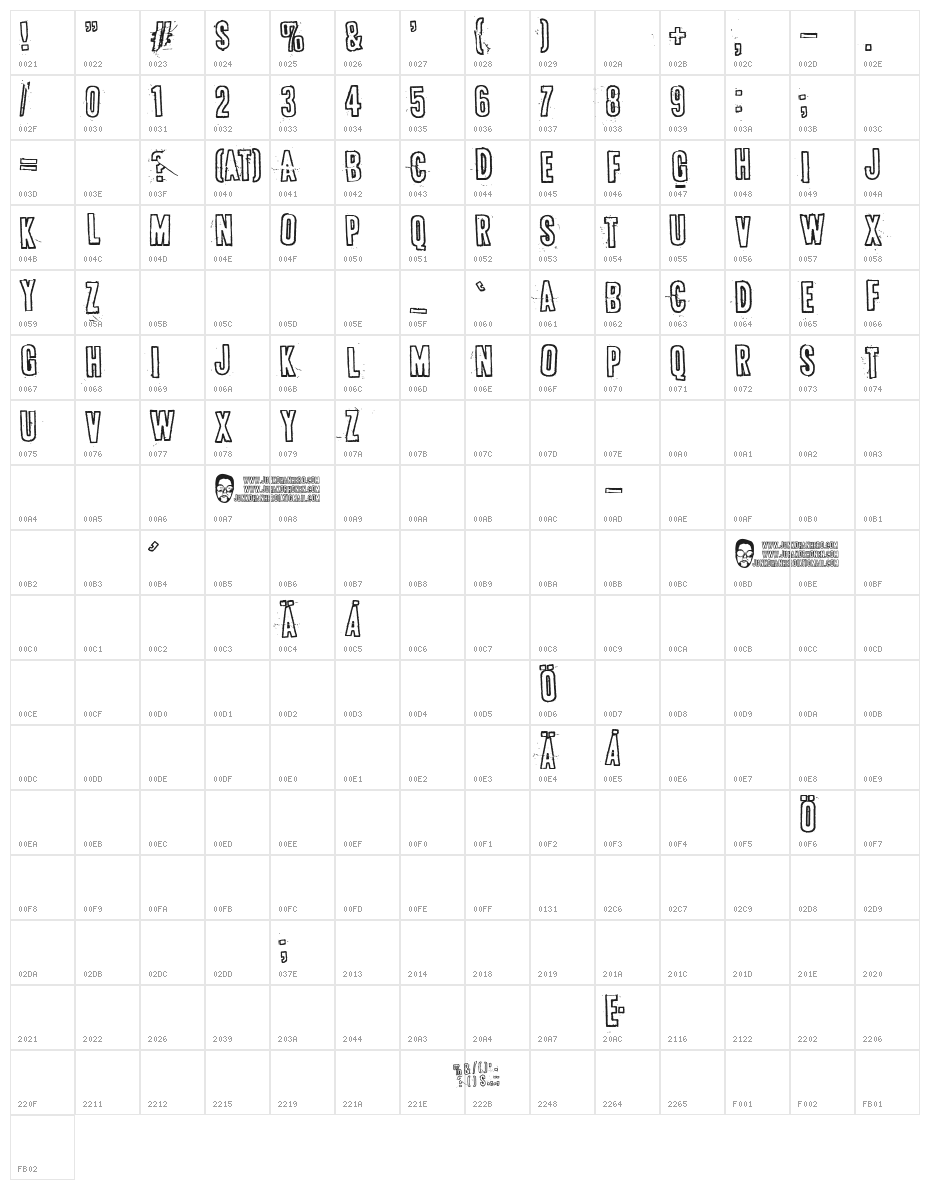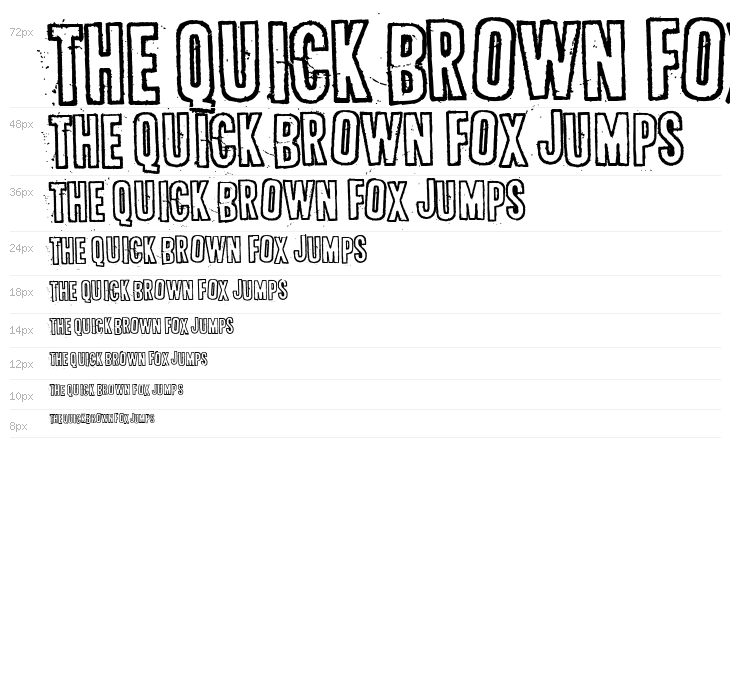
Bugebol huomenna Font
Bugebol huomenna Description
This font features a bold, distressed style with a hand-drawn appearance. The characters are outlined with a rough, textured edge, giving it a rugged and vintage feel. The uppercase and lowercase letters maintain a consistent height, while the numbers and special characters follow the same design ethos. The font's unique, imperfect lines and bold presence make it stand out, ideal for projects that require a strong, eye-catching typeface. Its distressed look adds character and depth, making it suitable for creative and artistic designs.
| Proposed Projects | Ideal for posters, album covers, branding, and any project needing a bold, artistic touch. |